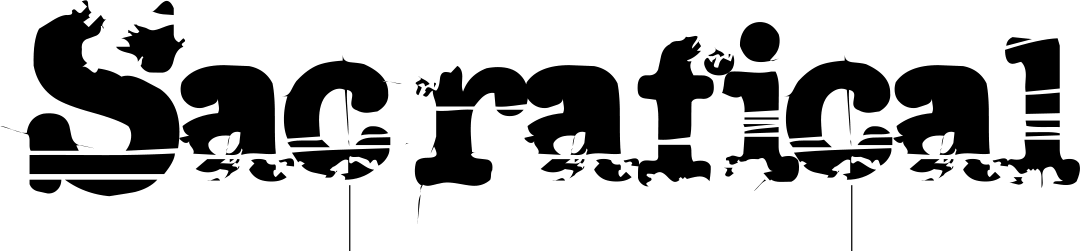
Sacrafical Font
Designed byHydro 74
Sacrafical font has graffiti and glitch font that adds creativity and charm with irregular horizontal lines to your artwork. This font is commonly used to design simple backgrounds and can be used for street brands, postcard designs, and many creative designs that you have been thinking about for a long time.